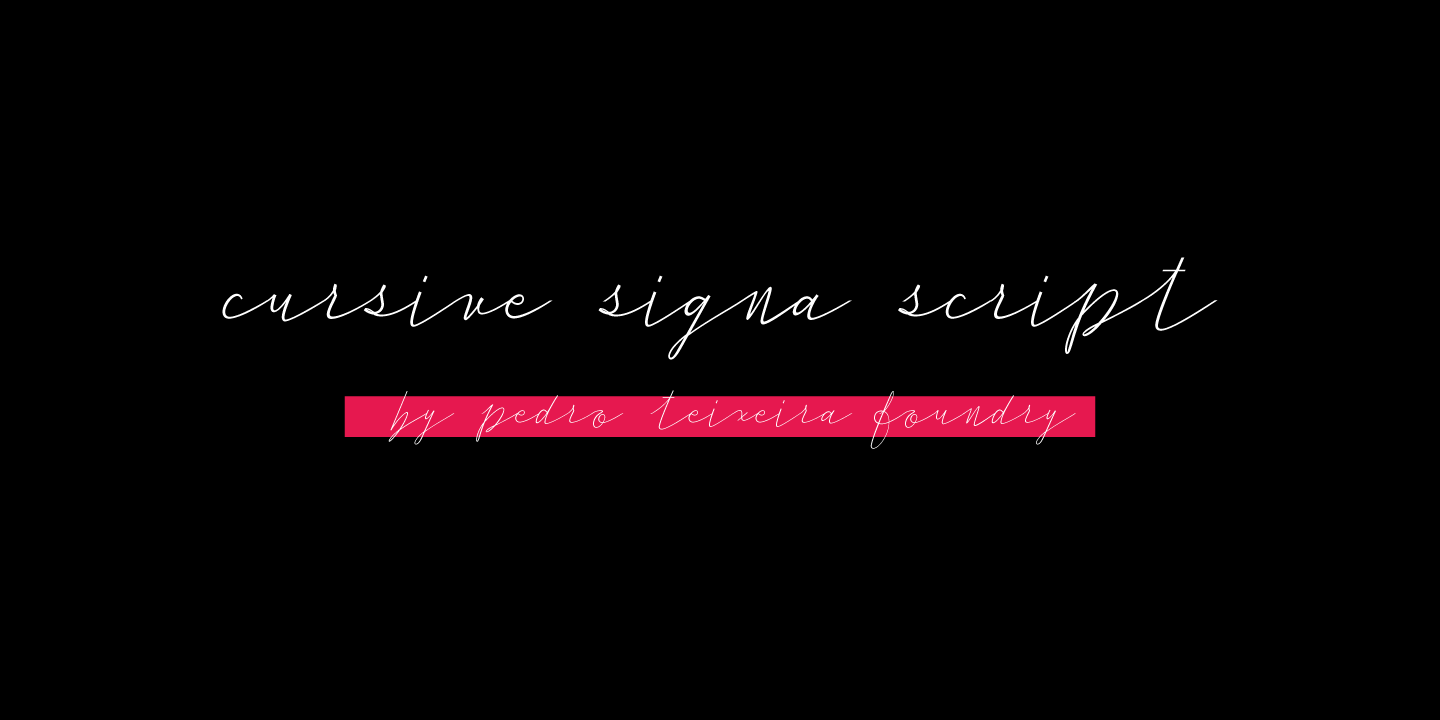
Cursive Signa Script Font is an exquisite choice for projects demanding elegance, personalization, and a refined handwritten aesthetic. It's perfectly suited for wedding invitations, high-end branding, luxury product labels, greeting cards, and certificates of authenticity. Its flowing lines and graceful ligatures make it ideal for conveying a sense of bespoke quality and sophisticated charm.
What makes Cursive Signa Script Font so exciting is its ability to transform ordinary text into a work of calligraphic art. It often features smooth, continuous strokes and a natural, organic rhythm that mimics authentic handwriting, giving your message an air of exclusivity and heartfelt craftsmanship. This font doesn't just display words; it signs them with a flourish, adding a touch of timeless allure and personal connection to any design.
The Cursive Signa Script Font family typically offers a rich array of variations to enhance its versatility and customizability. You'll often find Cursive Signa Script Regular as the foundational style, along with an extensive set of alternate characters, ligatures, and swashes that allow for endless stylistic permutations. These elements enable designers to create truly unique and personalized typographic compositions, maintaining a consistent yet dynamic aesthetic across various applications. For those eager to explore its potential, Cursive Signa Script Font Free Download provides an excellent opportunity to experiment with its unique charm.